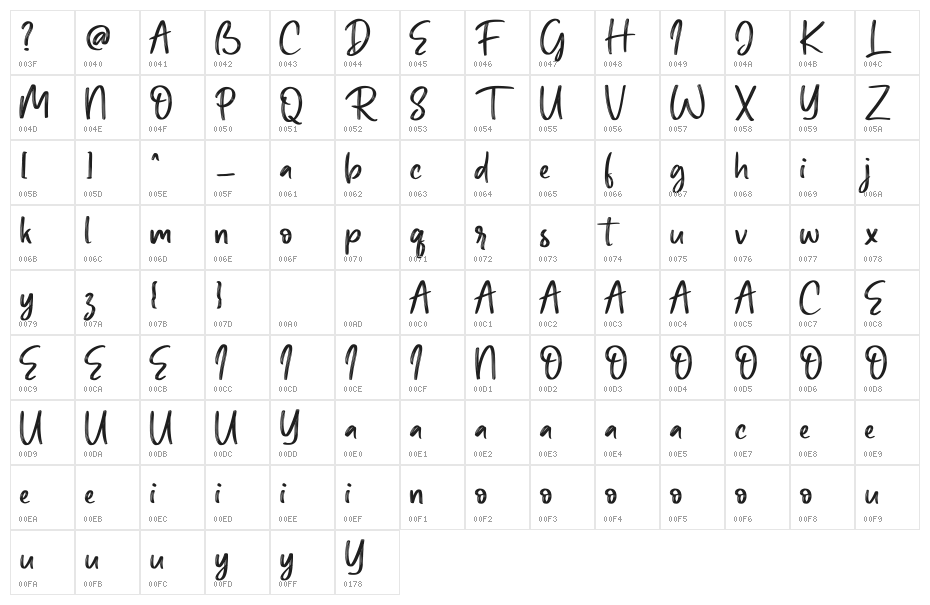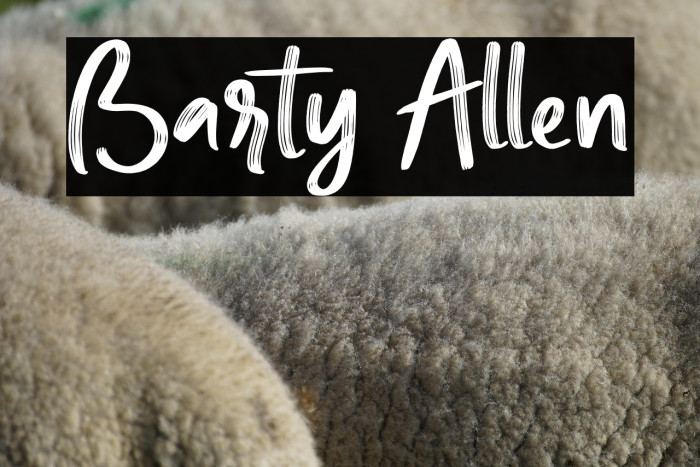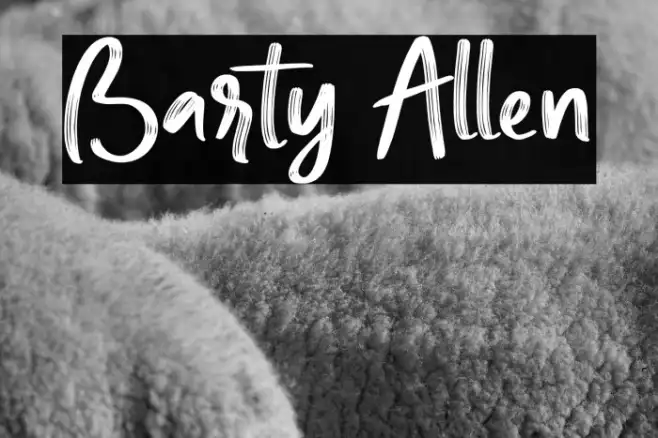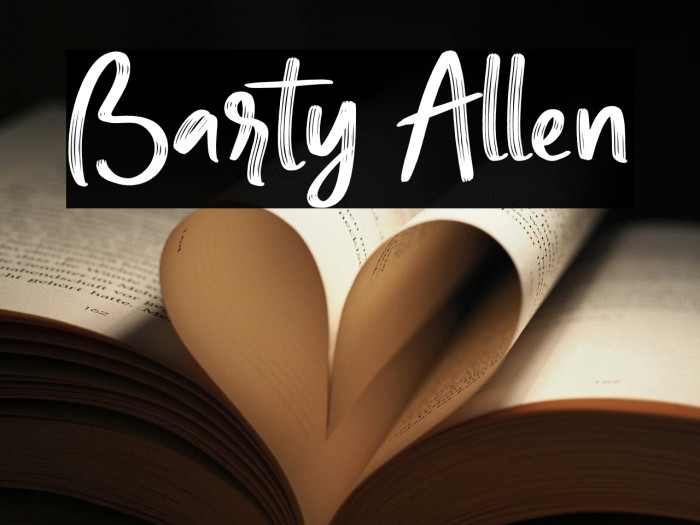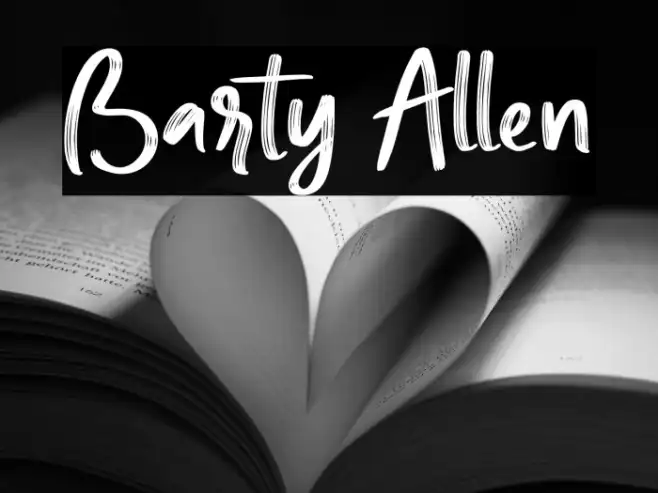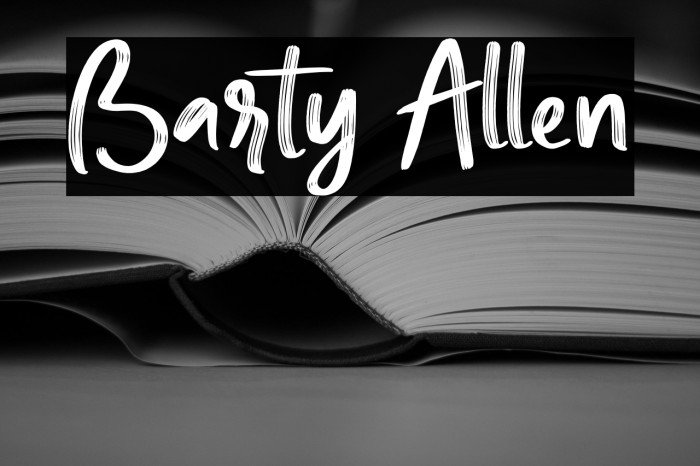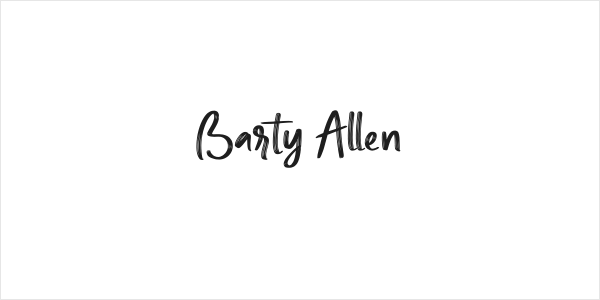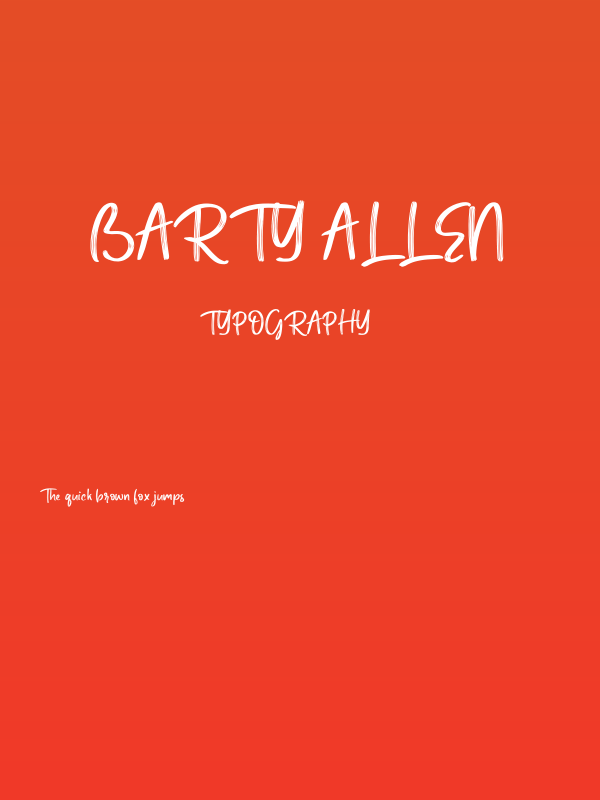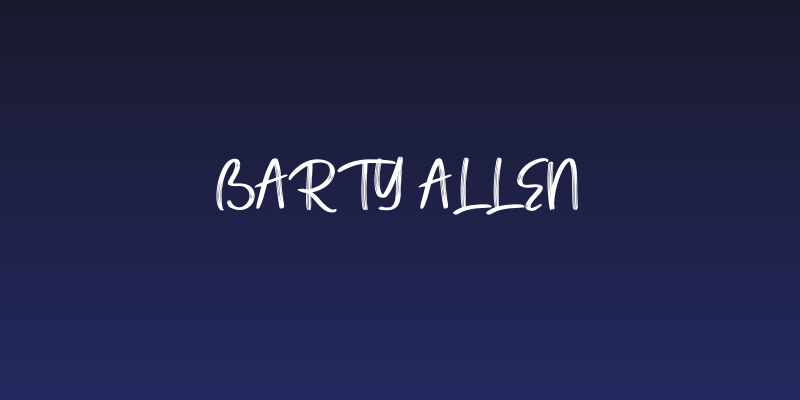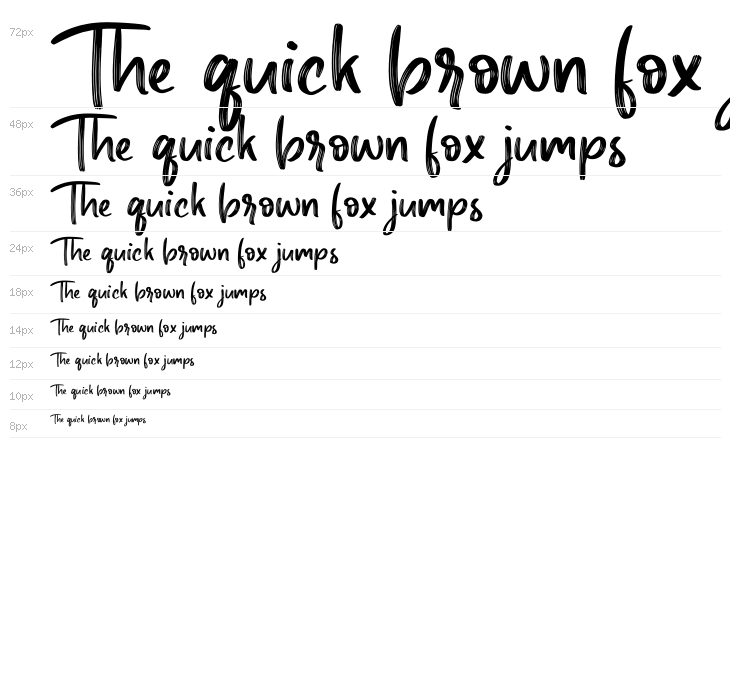
Barty Allen Font
Barty Allen Description
This font features a dynamic and energetic handwritten style, characterized by its bold strokes and fluid, cursive-like forms. The uppercase letters exhibit a playful yet sophisticated flair, with varying stroke widths that add a sense of movement and rhythm. The lowercase letters maintain this lively aesthetic, offering a harmonious blend of curves and angles. The overall appearance is both modern and artistic, making it suitable for creative and expressive design projects. The font's distinctive style is enhanced by its medium contrast, providing a balanced visual impact without overwhelming the viewer.
| Proposed Projects | Ideal for branding, packaging, social media graphics, and creative posters. |